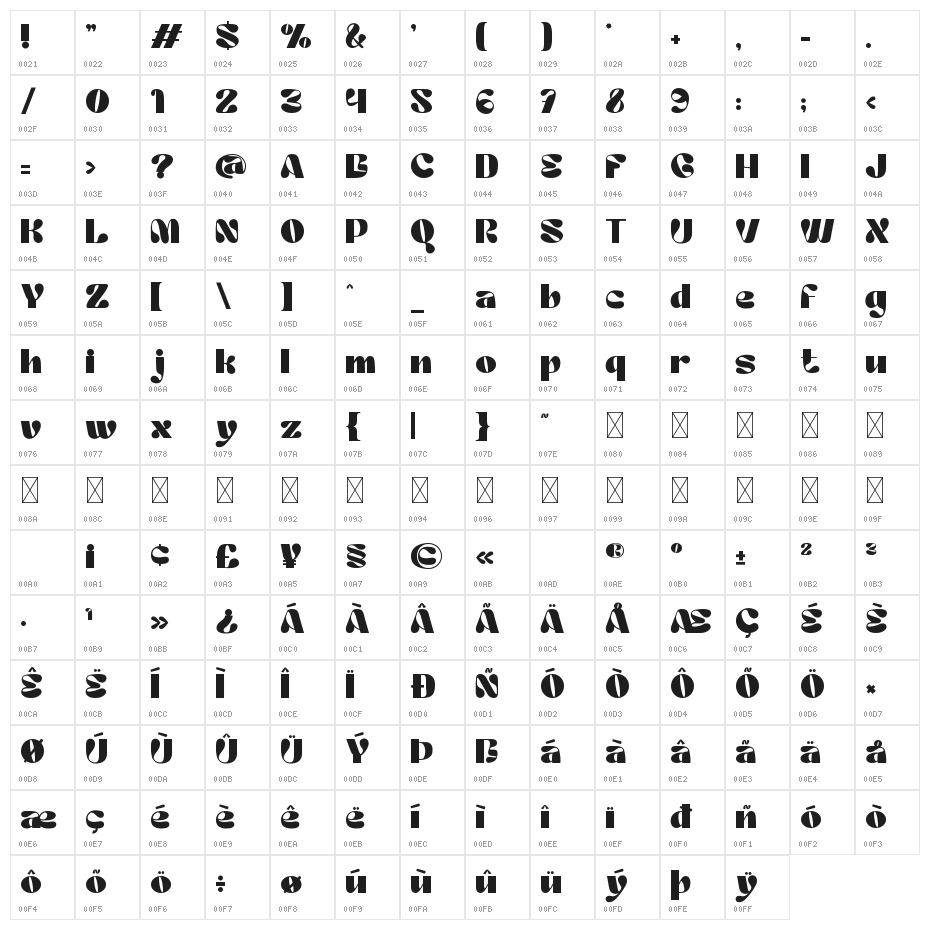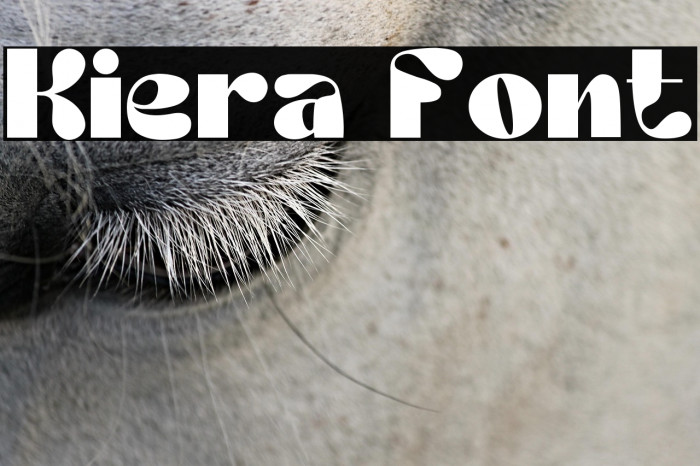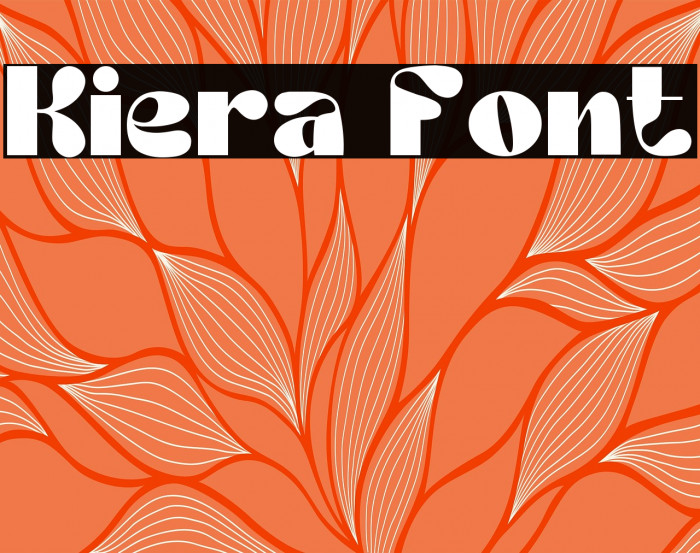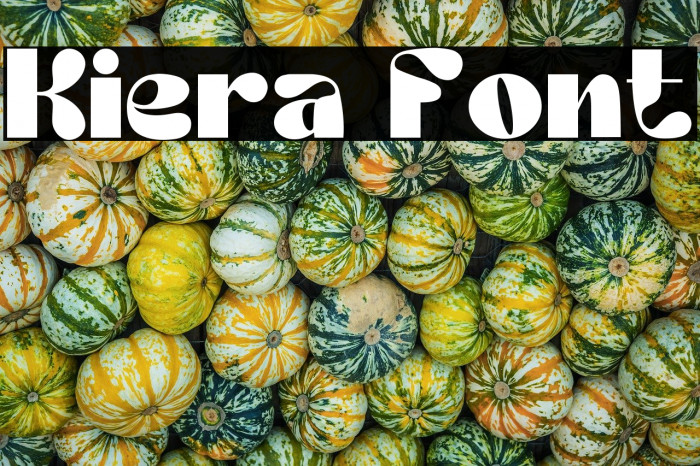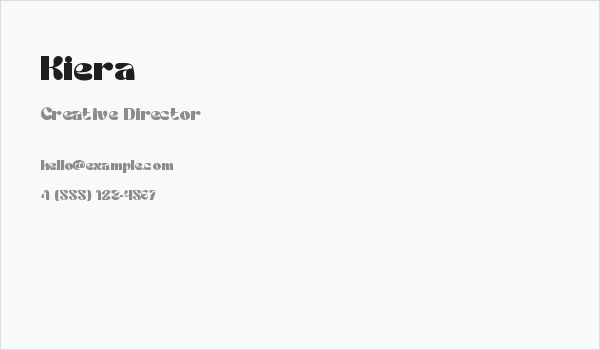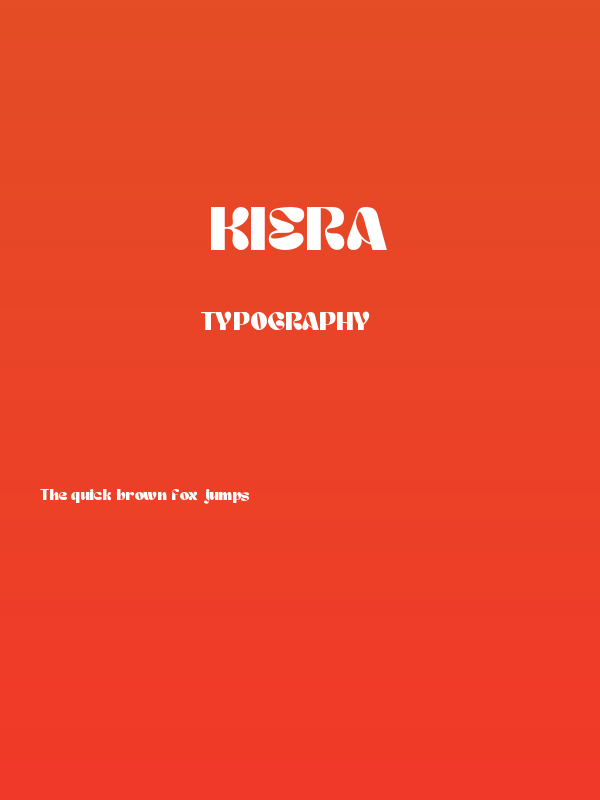
Kiera Font
Kiera Description
This font features a bold and striking design with a unique blend of geometric shapes and curves. The characters are crafted with a high contrast between thick and thin strokes, giving them a dynamic and eye-catching appearance. The uppercase letters are particularly distinctive, with some characters incorporating playful cutouts and rounded elements. The lowercase letters maintain a consistent style, complementing the uppercase with their own flair. Numbers and special characters follow the same bold and artistic approach, making them stand out. Overall, this font exudes a modern and artistic vibe, perfect for making a statement.
| Proposed Projects | Ideal for branding, posters, headlines, and creative design projects. |